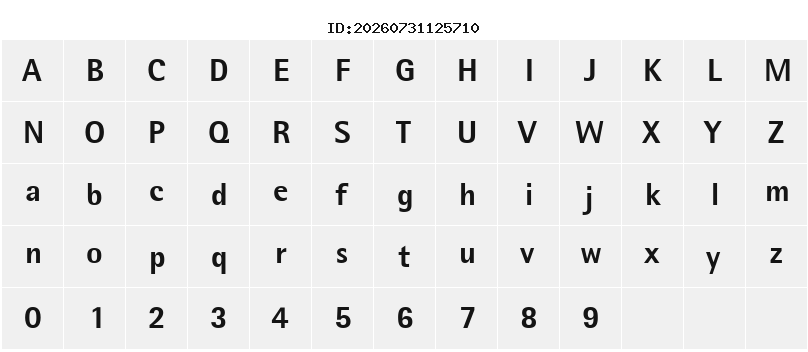
Libre SemiSans Black SSi Preview
• Font Name: Libre SemiSans Black SSi
• Font Style: Extra Bold
• Full Font Name: Libre SemiSans Black SSi Extra Bold
About Libre SemiSans Black SSi.ttf
Libre SemiSans Black SSi.ttf is a modern, elegant sans-serif font designed for ultimate readability and visual harmony. Perfect for branding, headlines, web design, and print materials.